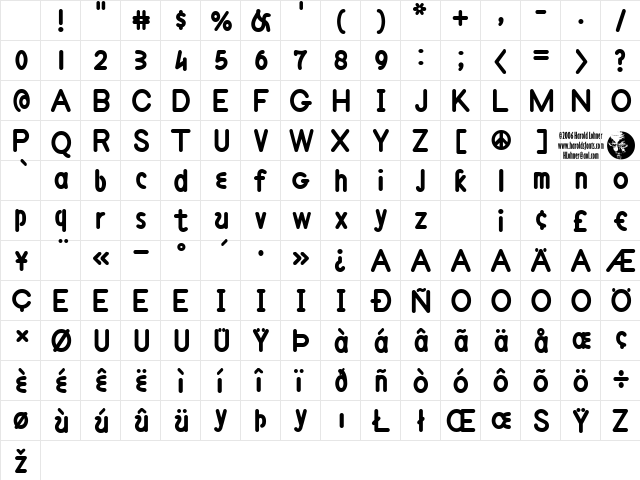
Philadelphia LineBold Regular
Design Context for Philadelphia LineBold
Philadelphia LineBold is a composed and adaptable typeface that performs quietly and consistently across a wide range of design contexts. Its bold stroke weight gives it real presence on the page.